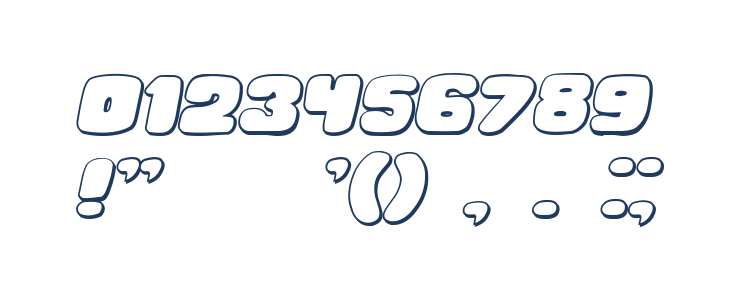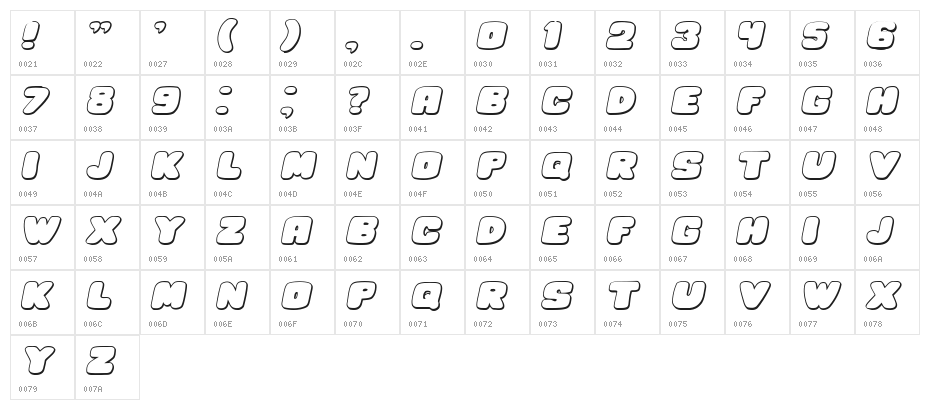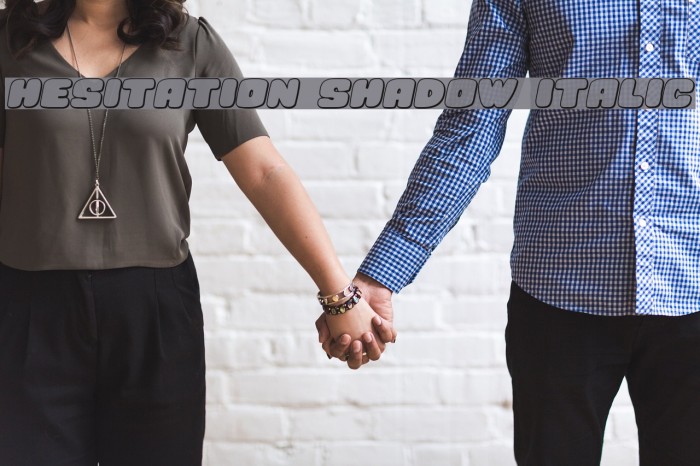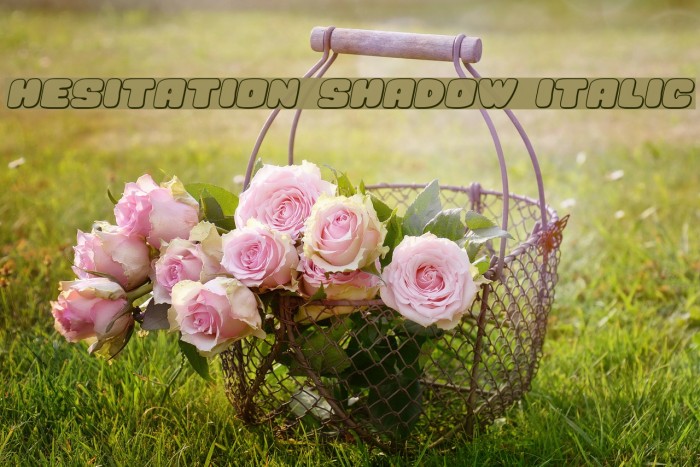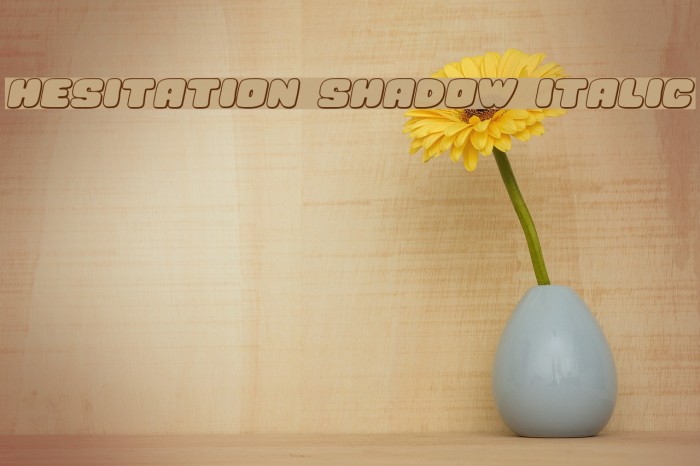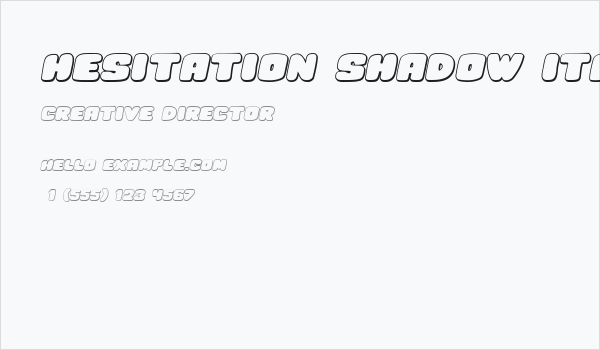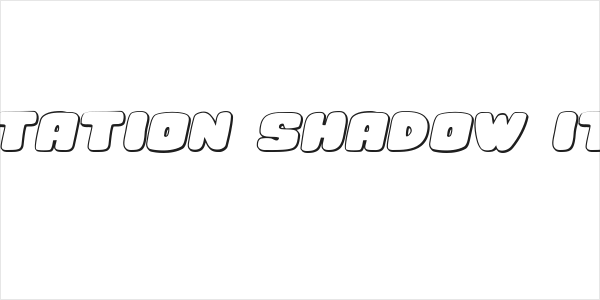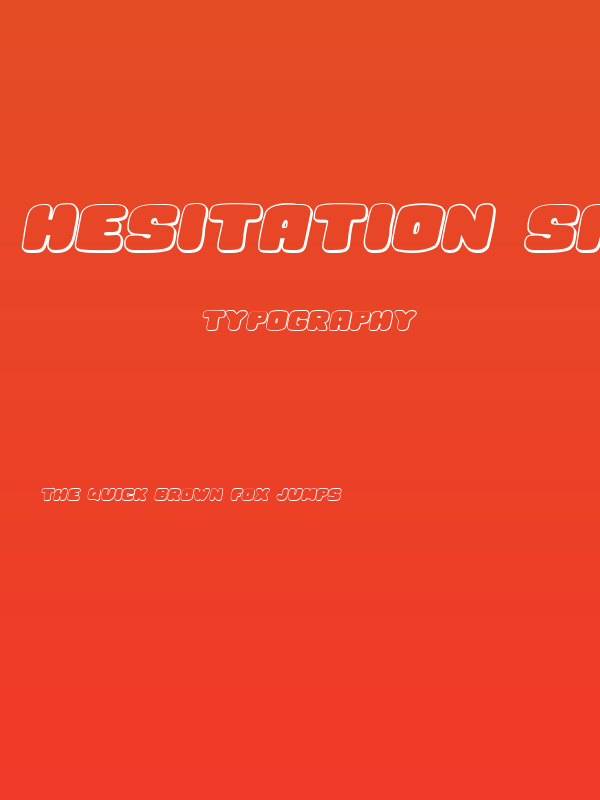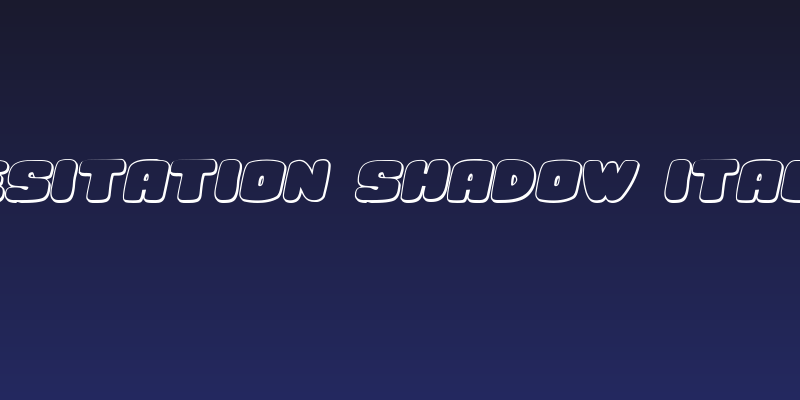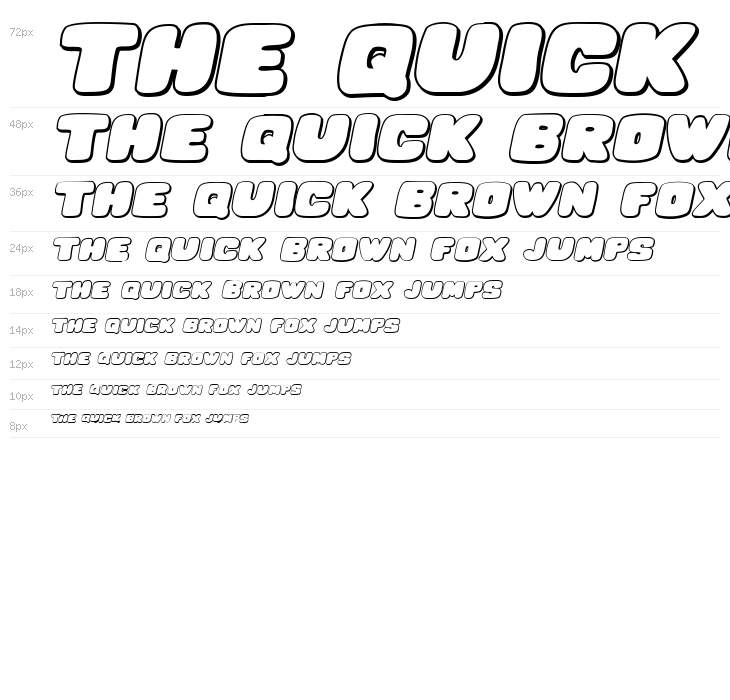
Hesitation Shadow Italic Font
Hesitation Shadow Italic Description
This font features a bold, rounded style with a playful and dynamic shadow effect that gives it a three-dimensional appearance. The characters are uniformly thick, contributing to a strong visual impact. The rounded edges soften the overall look, making it approachable and friendly. The shadow adds depth, creating a sense of movement and energy. This font is particularly eye-catching and is designed to stand out in any design context. It maintains a consistent weight throughout, ensuring readability while still providing a unique aesthetic. The spacing between characters is normal, allowing for clear legibility without overcrowding. The numbers and special characters follow the same stylistic approach, ensuring a cohesive look across all elements.
| Proposed Projects | Ideal for posters, headlines, logos, and any design requiring a bold, eye-catching typeface. |